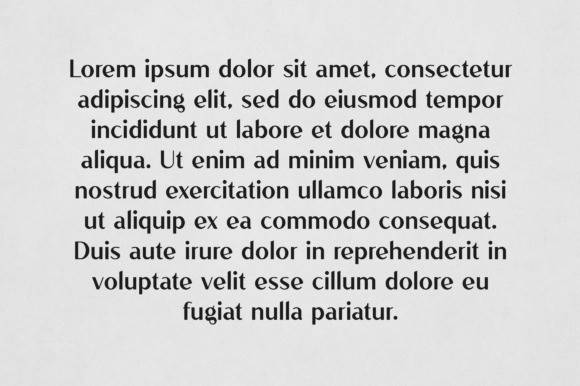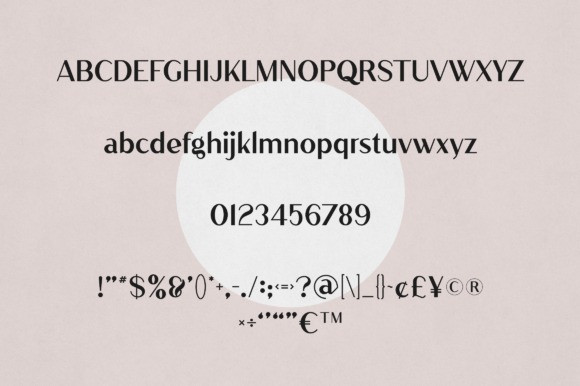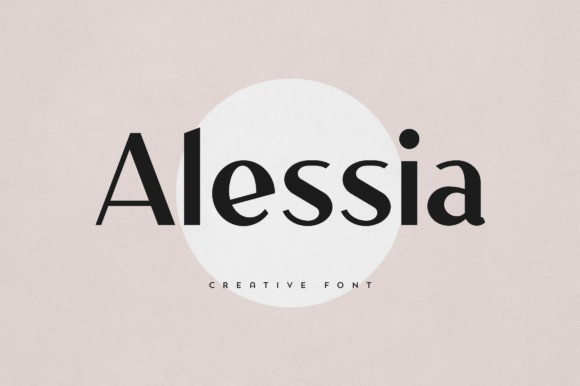
Alessia Font
Alessia Font is an elegant and versatile display font that will make your typography truly unique! It will be a great addition to your font library as it has the potential to elevate any design.